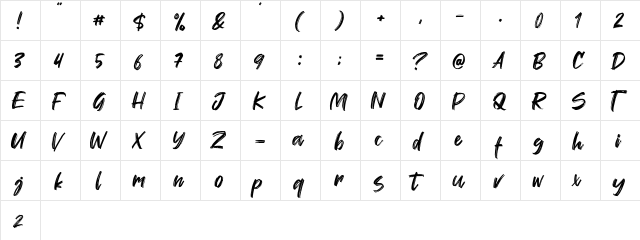
Wellfont Regular
| Foundry | Khurasan |
| Designer | Khurasan |
Design Context for Wellfont Typeface
Wellfont is a composed and adaptable typeface that performs quietly and consistently across a wide range of design contexts.